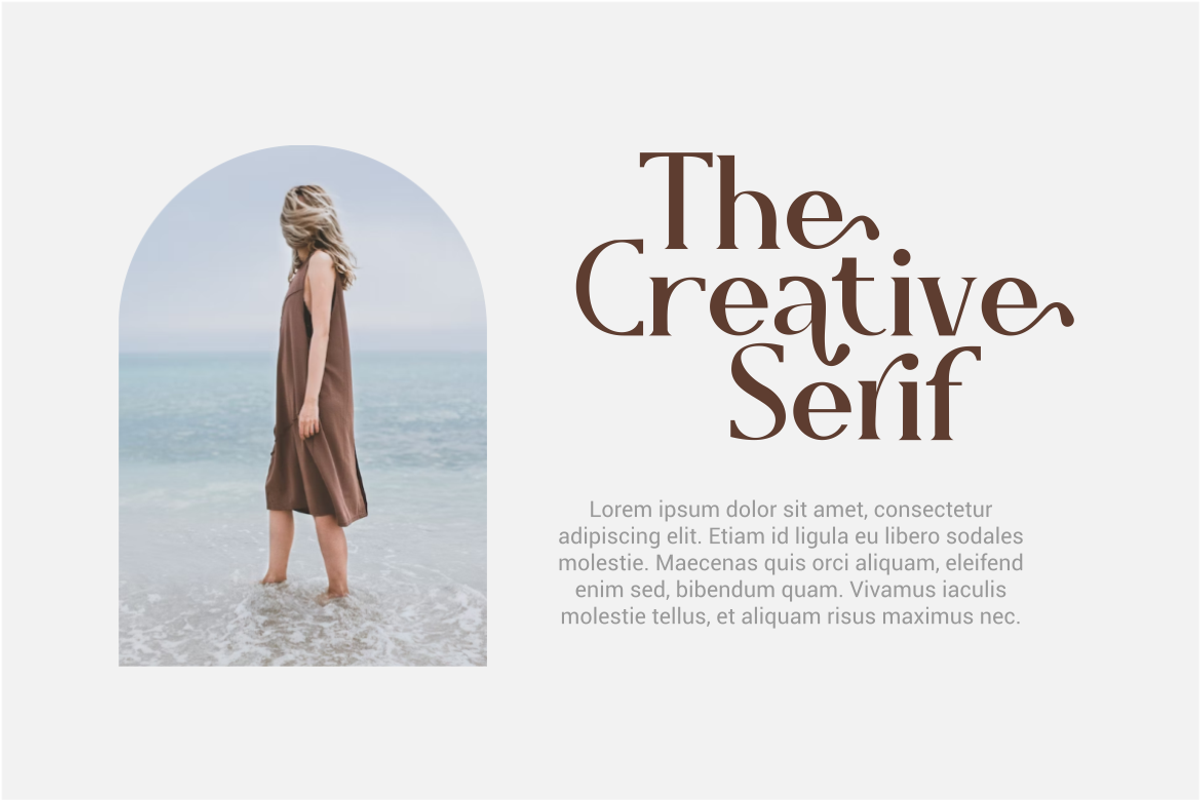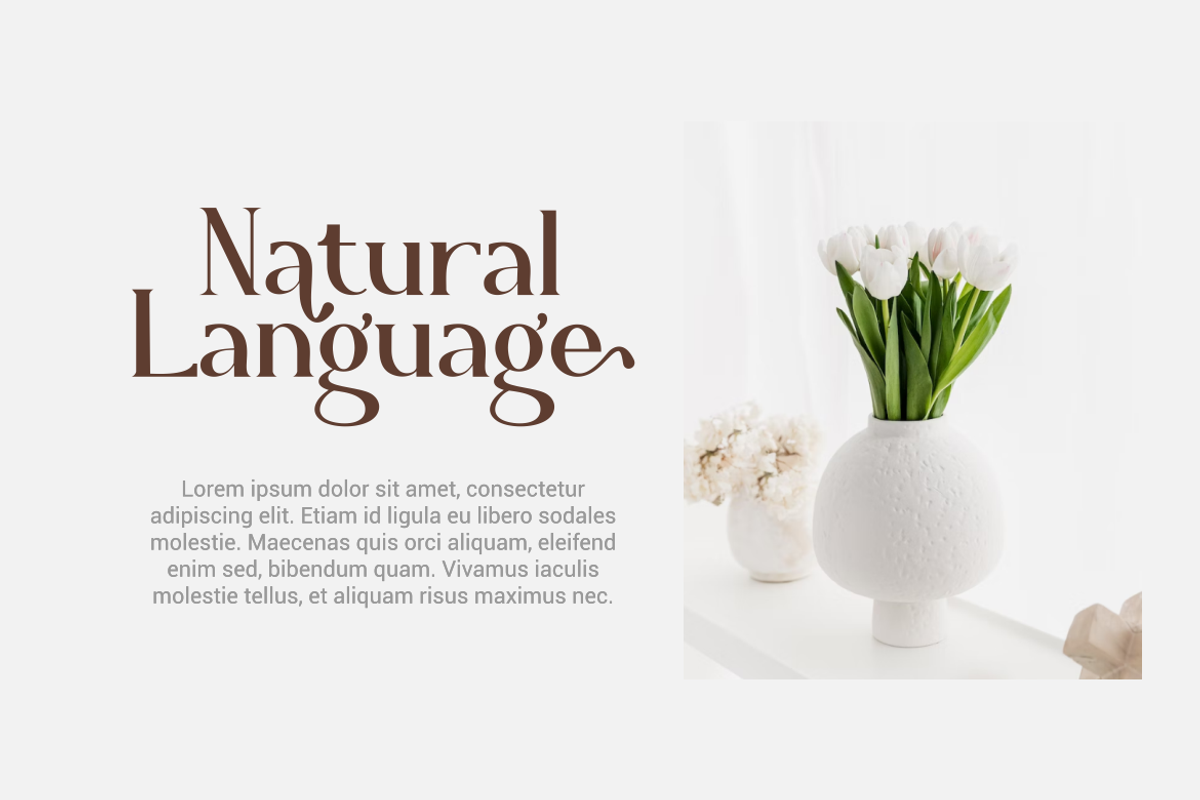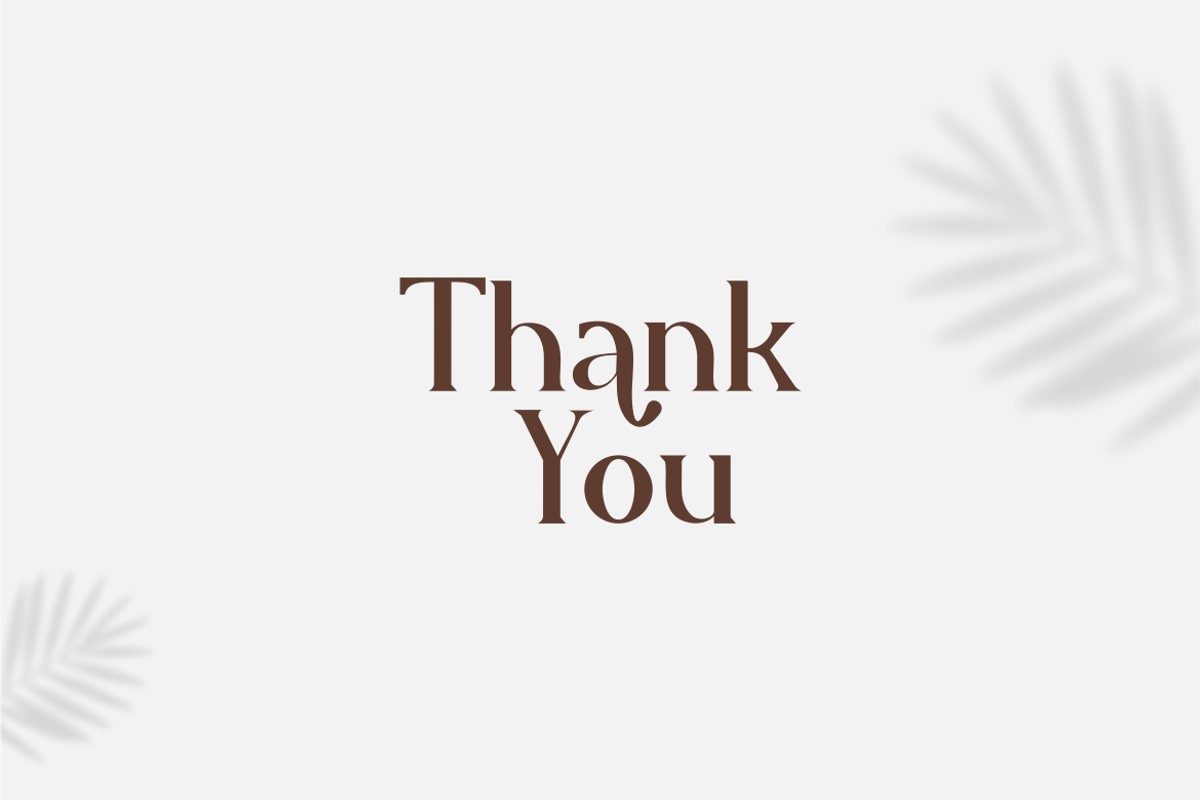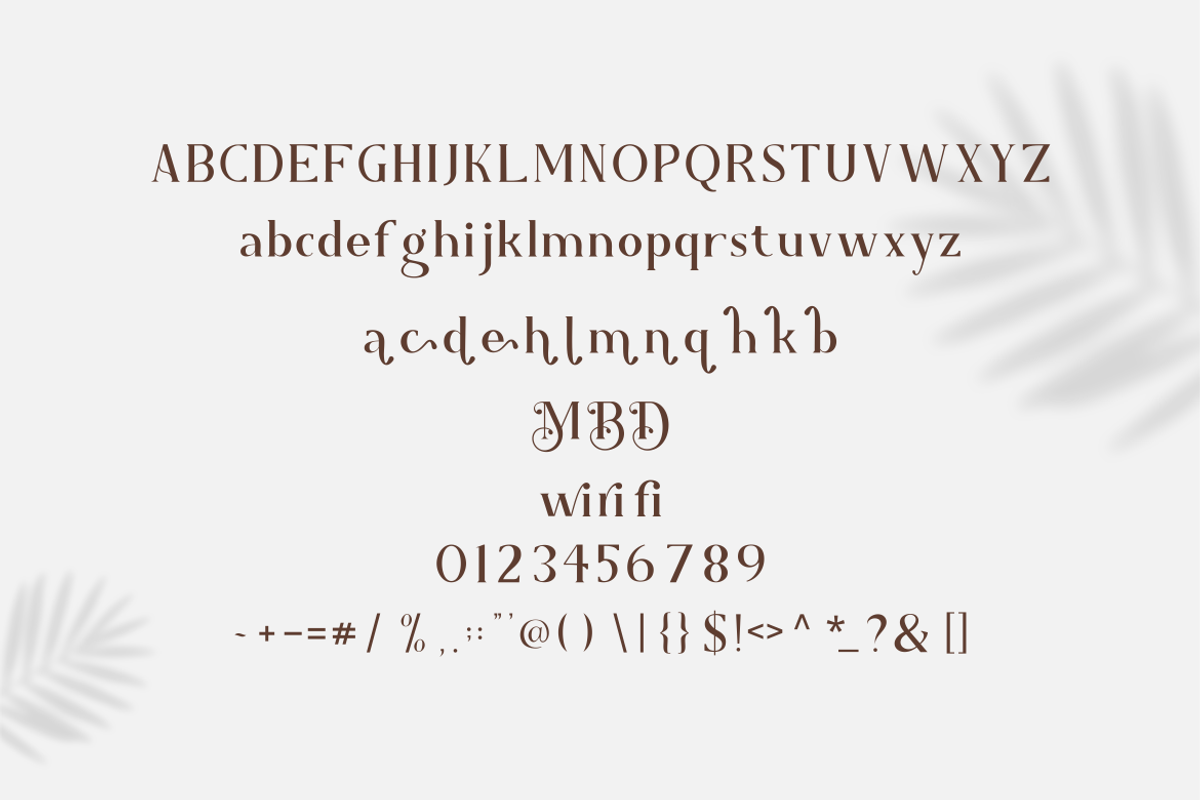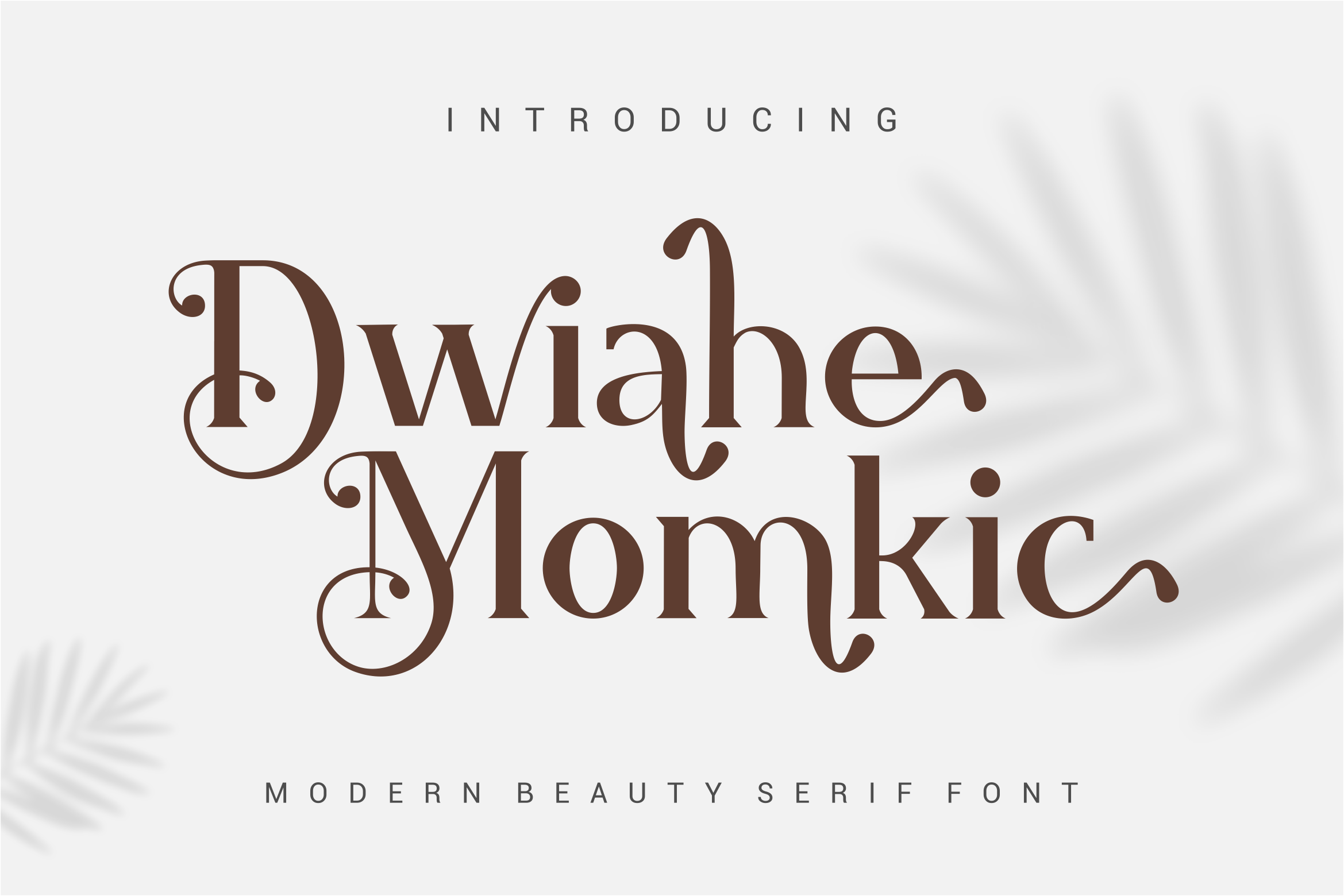
Dwiahe Momkic Font
Presenting our new product Dwiahe Momkic Font - Modern Font is a bold and authentic display font. This font is perfect for any branding project such as logos, t-shirt printing, creative products, and more. extraordinary in a variety of contexts.